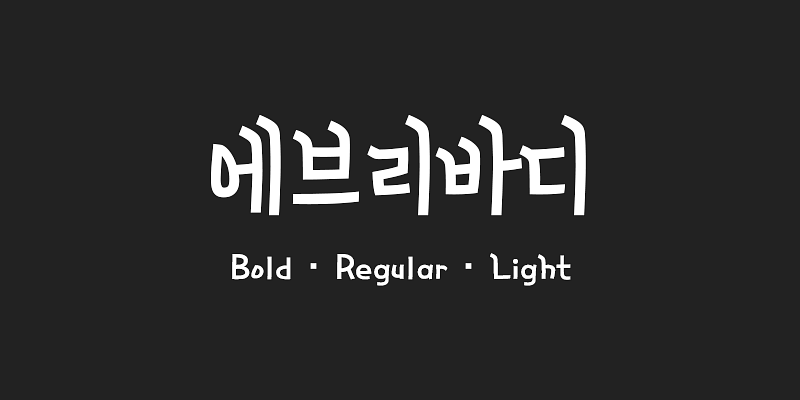
210 Everybody Font Free Download is a friendly, rounded Korean typeface designed with inclusivity and warmth in mind. Its name, “Everybody,” reflects the font’s universal appeal—welcoming, readable, and approachable for all types of audiences. Whether used in children’s content, casual branding, education materials, or feel-good social media graphics, this font shines with a clean, optimistic tone.
210 Everybody Font Free Download features soft, curved Hangul letterforms with open counters and even rhythm, making it easy to read while conveying a light-hearted personality. It also supports Latin characters, making it suitable for bilingual designs and international messaging.
The font is ideal for projects that aim to feel community-driven, cheerful, or youth-oriented—like posters, digital campaigns, packaging, or apps for kids and families.
Friendly, clear, and universally charming—210 Everybody Font is your go-to typeface for designs that bring people together with positivity and clarity.